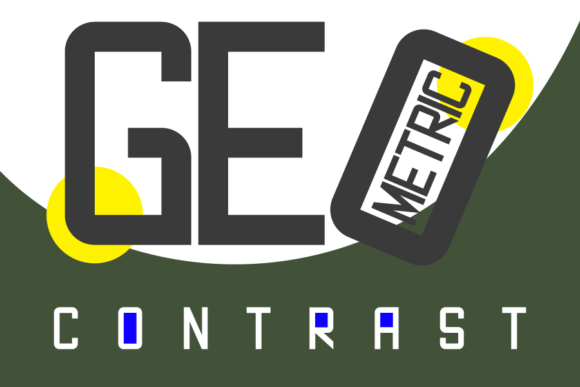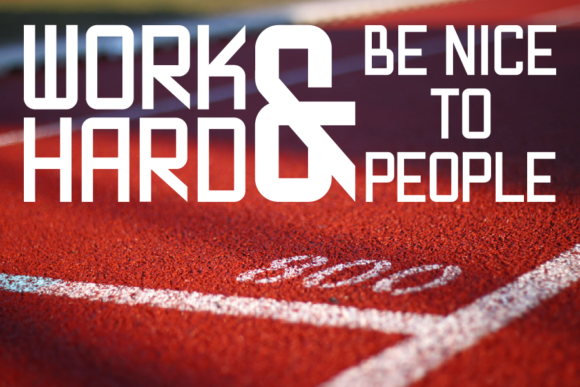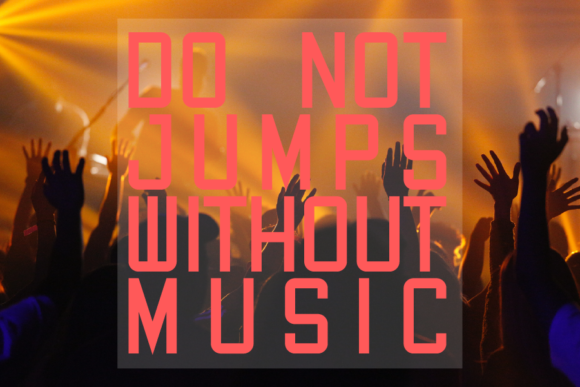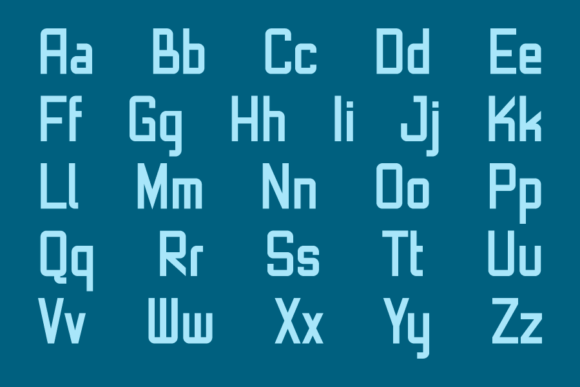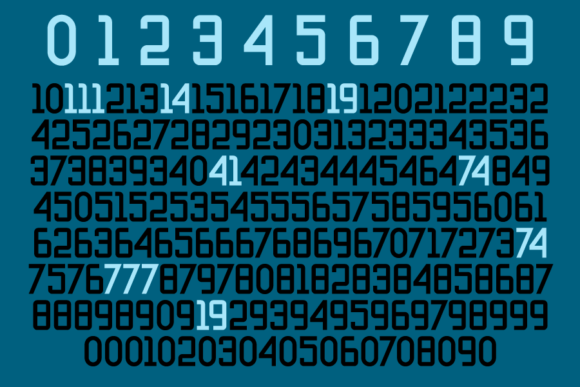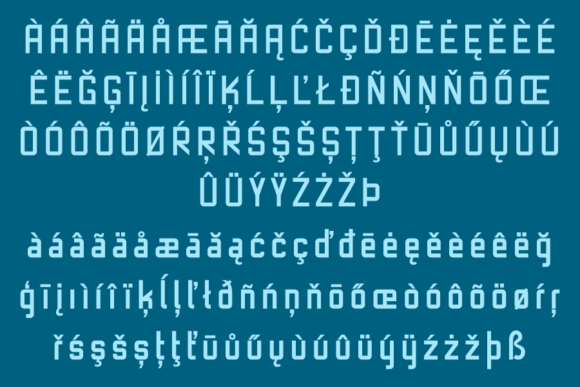
Discover the Unique Charm of Blackrough Font: A Bold and Elegant Sans Serif
In the world of typography, fonts play a crucial role in conveying messages, expressing emotions, and creating visual identities. For designers and crafters, finding the perfect font can be a daunting task, especially when looking for something that stands out from the crowd. This is where Blackrough Font comes into play – a bold and elegant sans serif font that boasts a distinctive look, sure to inspire and elevate your creative projects.
The Distinctive Look of Blackrough Font
Blackrough Font is characterized by its clean and modern sans serif design, which exudes a sense of sophistication and elegance. Its bold strokes and carefully crafted letterforms make it a versatile font, suitable for a wide range of applications, from branding and advertising to packaging and digital media. The font’s unique charm lies in its subtle imperfections and distinctive features, which set it apart from more traditional sans serif fonts.
Key Features of Blackrough Font
- Bold and Elegant Design: Blackrough Font features a bold and elegant design that commands attention and conveys confidence.
- Distinctive Letterforms: The font’s carefully crafted letterforms have a unique charm that adds a touch of personality to any text.
- Clean and Modern Sans Serif: The font’s clean and modern sans serif design makes it perfect for a wide range of applications, from digital media to print materials.
- Versatile and Adaptable: Blackrough Font is highly versatile and adaptable, making it suitable for use in various contexts, from headlines and titles to body text and captions.
Why Choose Blackrough Font?
So, why should designers and crafters choose Blackrough Font for their creative projects? Here are a few compelling reasons:
- Stand Out from the Crowd: Blackrough Font’s unique design and distinctive features make it an excellent choice for those looking to stand out from the crowd and create a lasting impression.
- Enhance Brand Identity: The font’s bold and elegant design makes it perfect for branding and advertising, helping to create a strong and memorable visual identity.
- Easy to Read and Understand: Despite its bold design, Blackrough Font is highly legible, making it suitable for use in body text and captions, as well as headlines and titles.
- Highly Versatile: The font’s versatility and adaptability make it an excellent choice for a wide range of applications, from digital media to print materials.
How to Use Blackrough Font in Your Designs
Using Blackrough Font in your designs is easy and straightforward. Here are a few tips to get you started:
- Pair with Complementary Fonts: Pair Blackrough Font with complementary fonts to create a visually appealing contrast and add depth to your designs.
- Experiment with Different Sizes and Colors: Experiment with different sizes and colors to create a unique and eye-catching visual effect.
- Use for Headlines and Titles: Use Blackrough Font for headlines and titles to create a bold and attention-grabbing effect.
- Use for Body Text and Captions: Use Blackrough Font for body text and captions to add a touch of elegance and sophistication to your designs.
| Font Name | Blackrough Font |
| Author | Sign Studios |
In conclusion, Blackrough Font is a bold and elegant sans serif font that boasts a distinctive look, sure to inspire and elevate your creative projects. Its unique charm, versatility, and adaptability make it an excellent choice for designers and crafters looking to stand out from the crowd and create a lasting impression. Whether you’re working on a branding project, creating digital media, or crafting print materials, Blackrough Font is sure to become a valuable addition to your typographic toolkit.